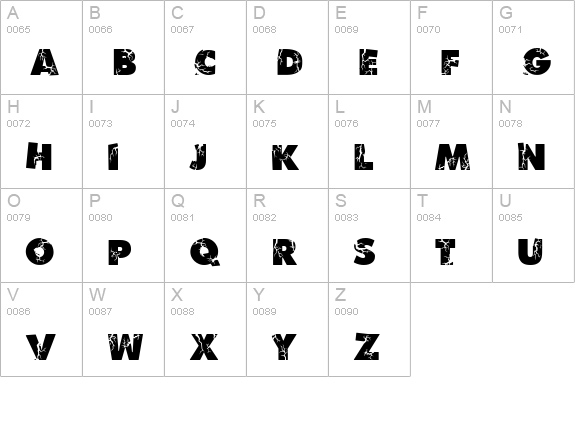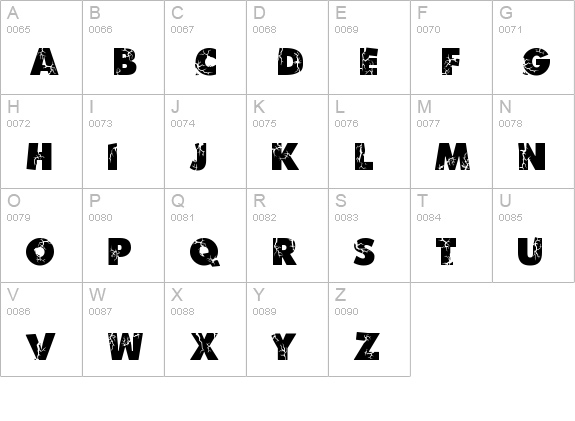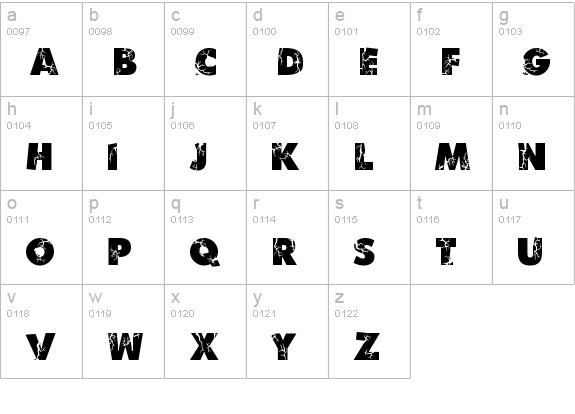
The Ben Krush font is a stylish and modern typeface designed for a wide range of design projects. With its sleek lines and contemporary appeal, this font is perfect for adding a touch of sophistication to logos, branding materials, posters, and more. The Ben Krush font is versatile and easy to read, making it a great choice for both print and digital designs. What's even better is that the Ben Krush font is available for free download at FontsMarket.com. This means you can easily access this high-quality font without any cost, making it a valuable addition to your font collection. Whether you're a professional designer or just looking to spruce up your personal projects, the Ben Krush font is a fantastic choice that will elevate your designs to the next level.